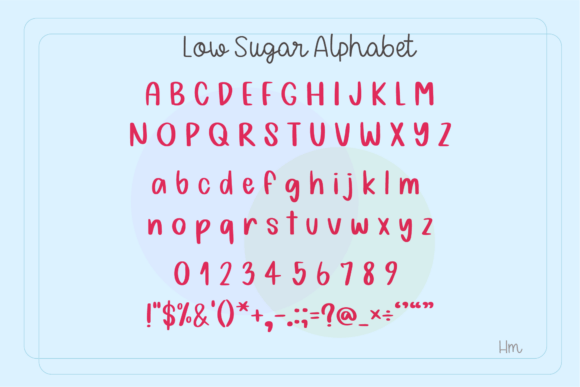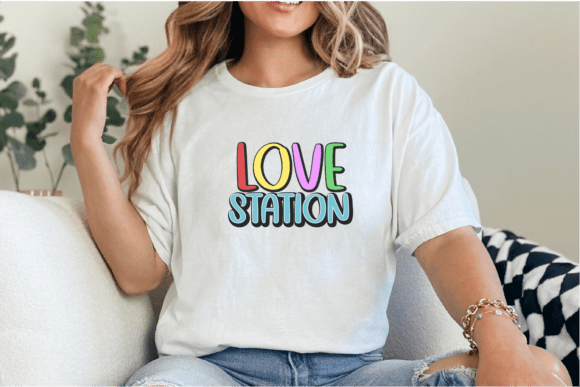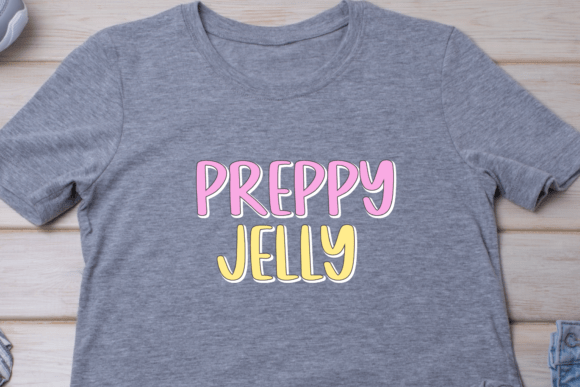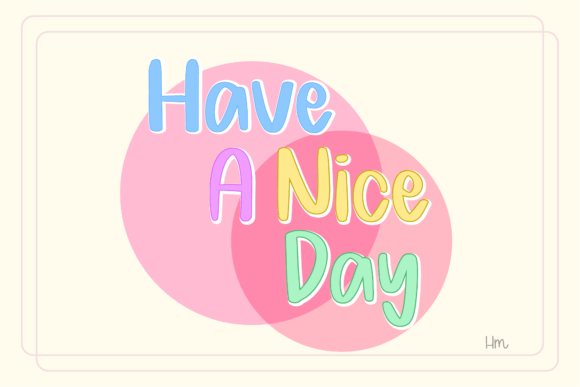
Introduction to Low Sugar Font
Dive into the fun, energetic world of teen-focused design with the Low Sugar font, a playful and expressive typeface inspired by journaling and casual note-taking.
This Low Sugar typeface features tall, rounded characters with “glossy” highlights that give the letters a 3D, pop-art appearance The Low Sugar font is designed for the digital generation, making it a standout choice for app interfaces, social media stories, and creative journals where personality and energy are key.
Key Features of Low Sugar Font